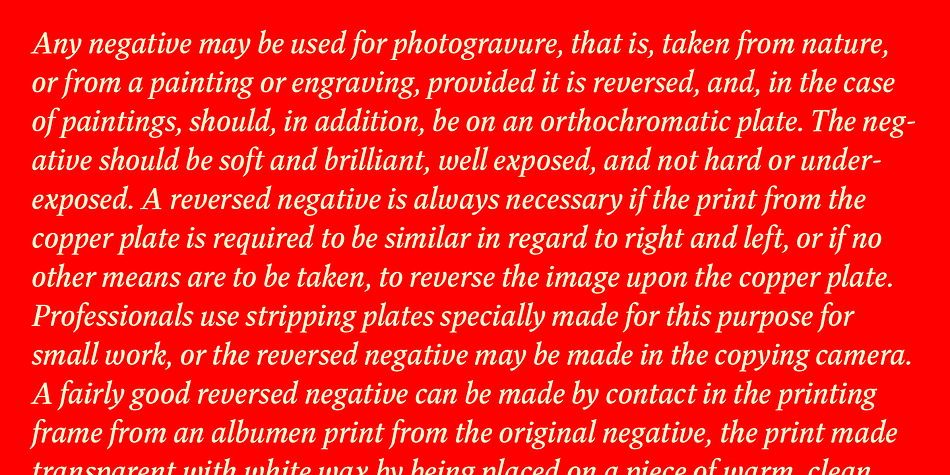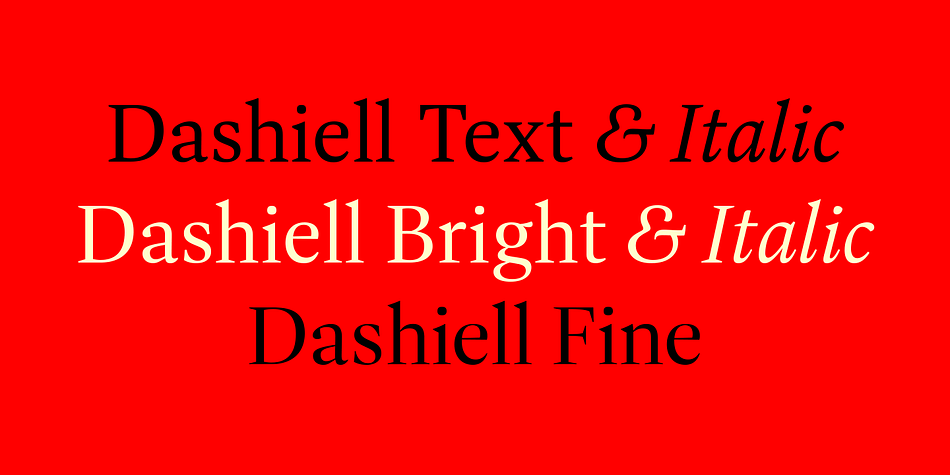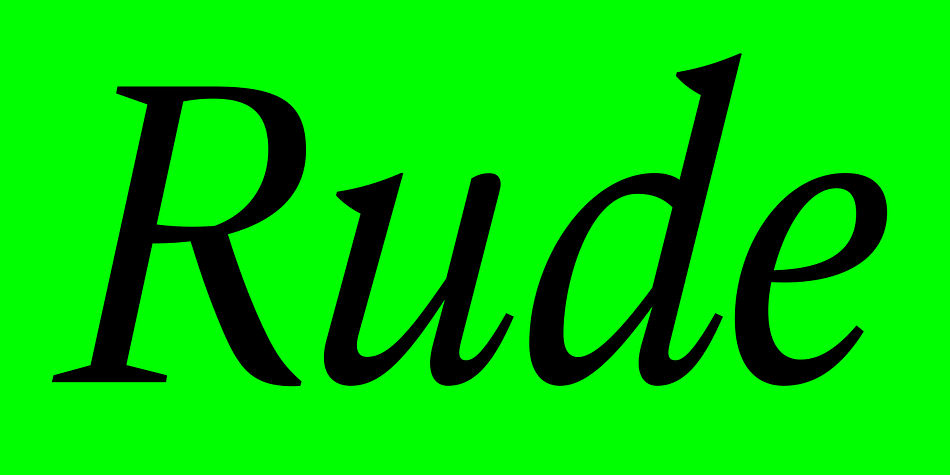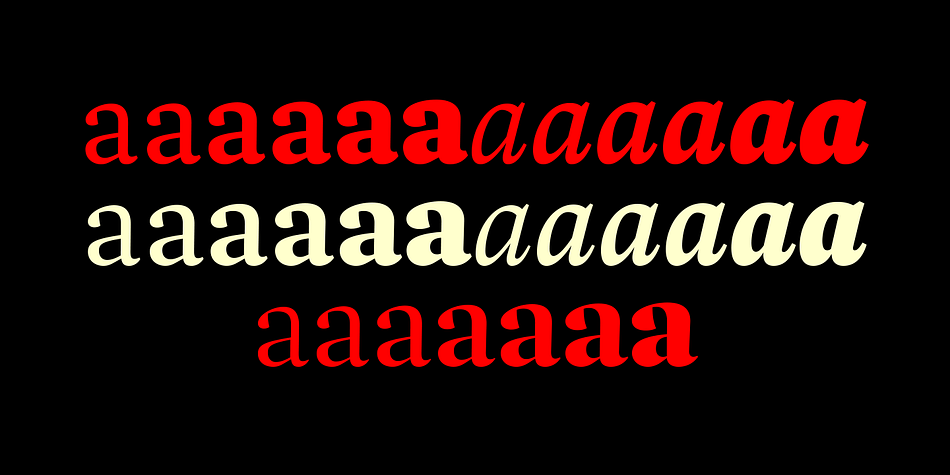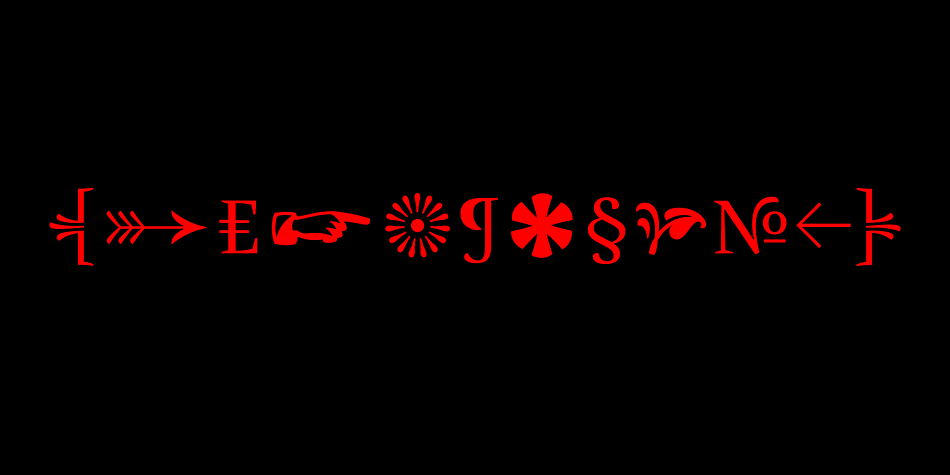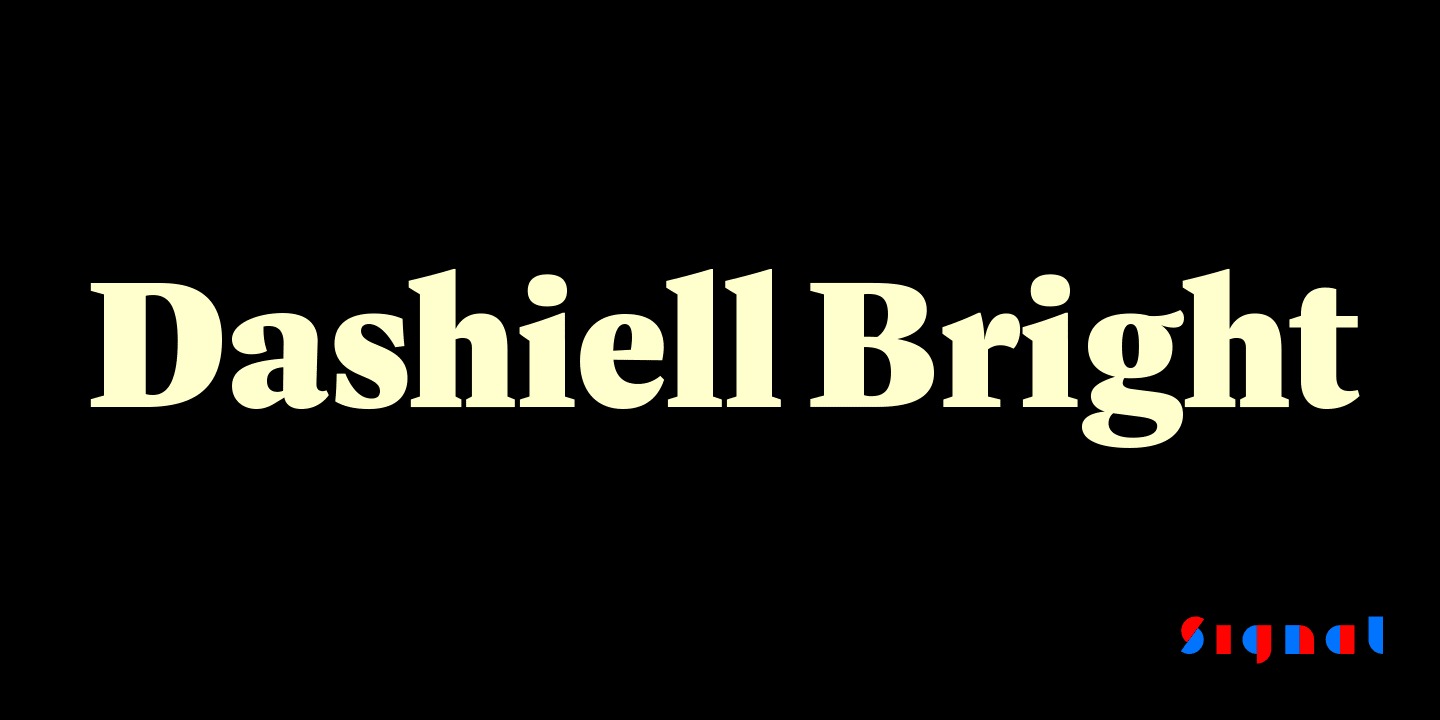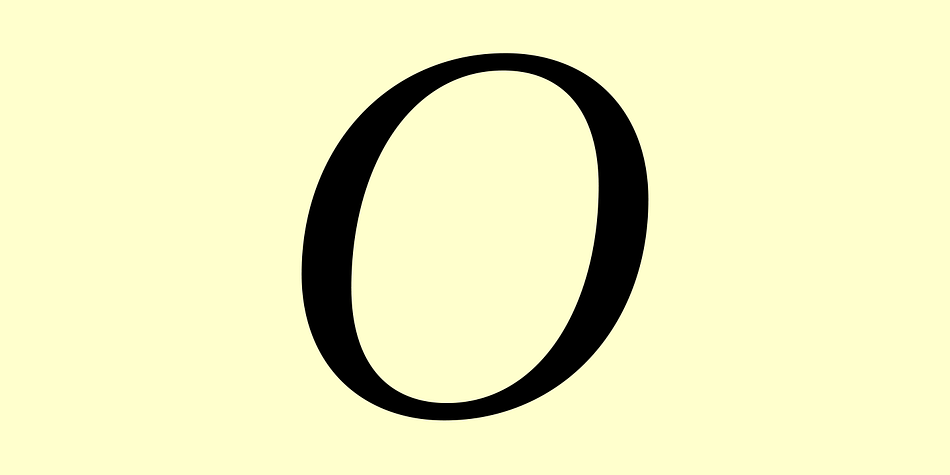
Designed by Max Phillips, Dashiell Bright is a serif font family. This typeface has twelve styles and was published by Signal Type Foundry.
Dashiell Bright has more sparkle than Dashiell Text, with subtly finer hairlines and serifs, and is particularly suited to printed books and magazines, where its crisply drawn forms hold the page nicely without being overbearing. While a touch more literary than Dashiell Text, it shares the same six weights, ample counters and x-height, and unbracketed wedge serifs. Like its sister, Dashiell Bright supports over 140 languages and includes proportional and tabular lining and oldstyle figures, small caps, case-sensitive punctuation and delimiters, and a selection of borders and ornaments. Of course, it pairs well with its sister faces, Dashiell Text and Dashiell Fine.